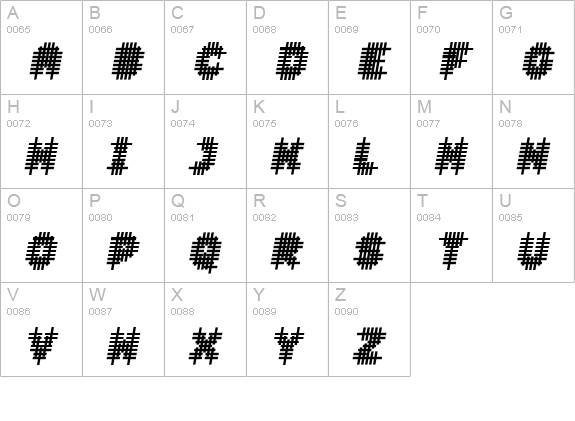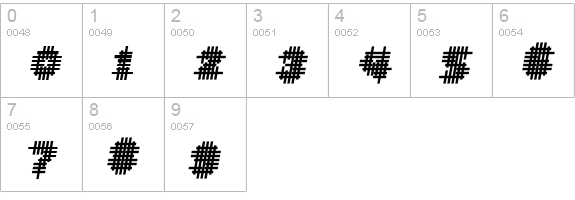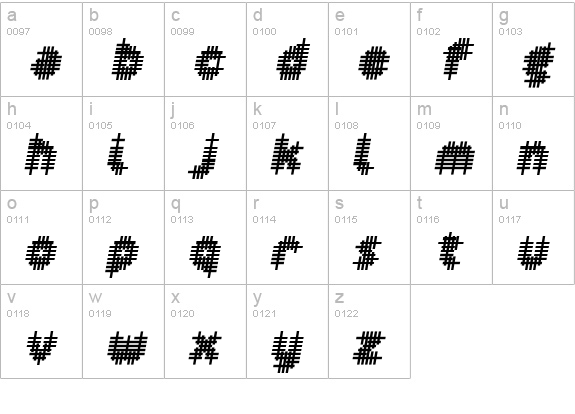
Overcross ExtraBoldOblique Font Details
Overcross ExtraBoldOblique font is a bold and dynamic typeface that exudes strength and modernity. Its slanted, oblique design adds a touch of sophistication and uniqueness to any project. With its thick strokes and sharp angles, this font demands attention and makes a powerful statement. Whether used for headlines, titles, or branding, Overcross ExtraBoldOblique will leave a lasting impression. The best part is that this font is available for free download at FontsMarket.com. You can easily access and utilize this eye-catching typeface for all your design needs without any cost. Don't miss out on adding Overcross ExtraBoldOblique to your font collection today!